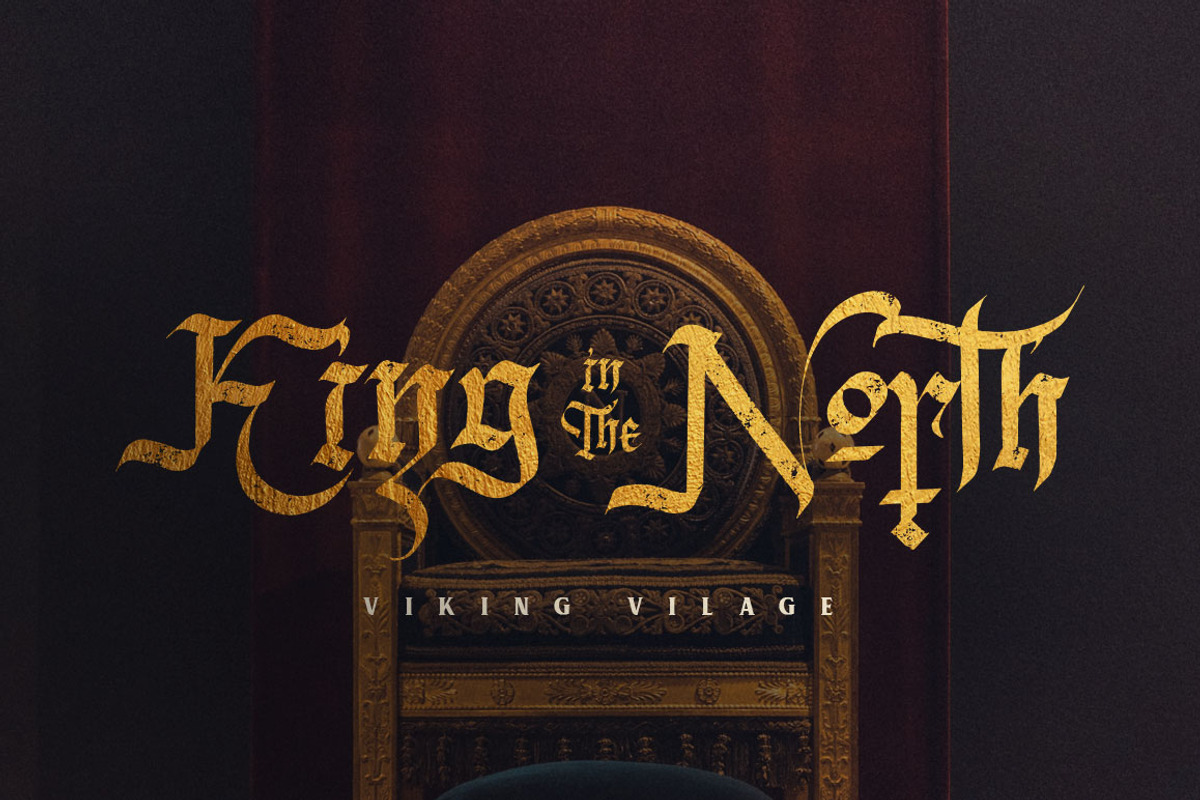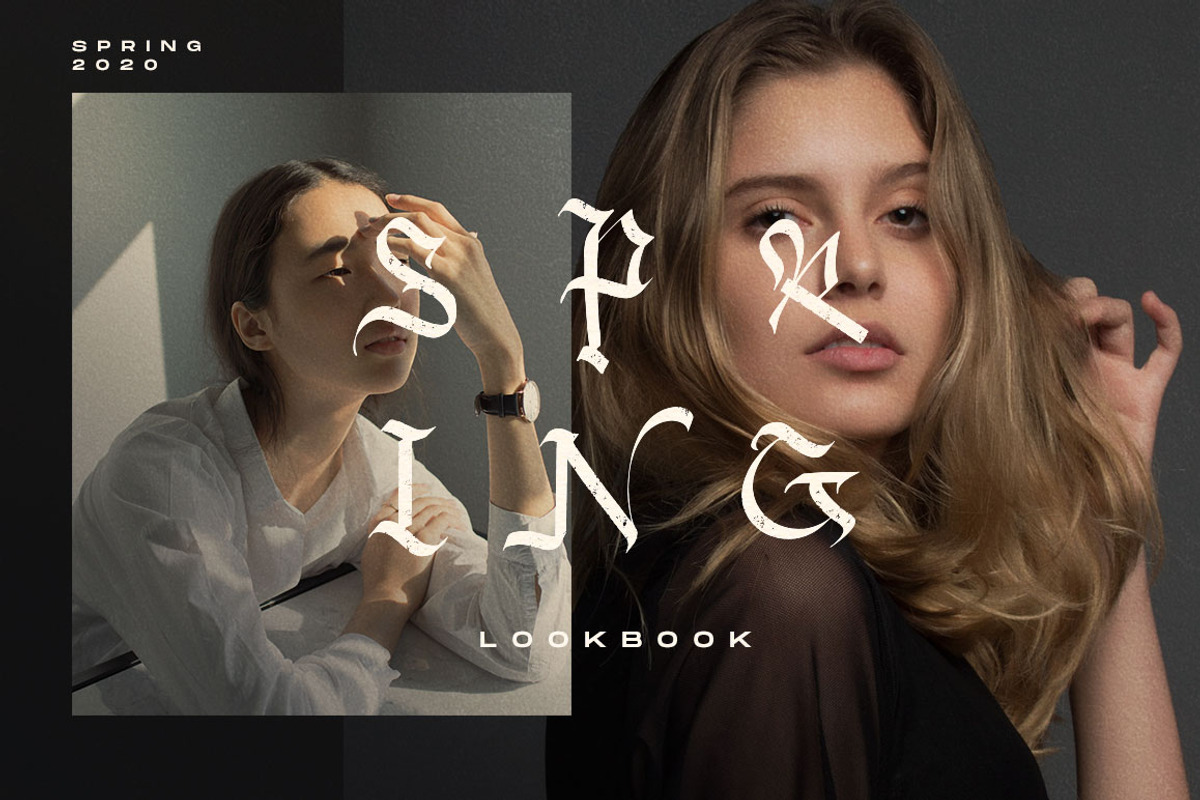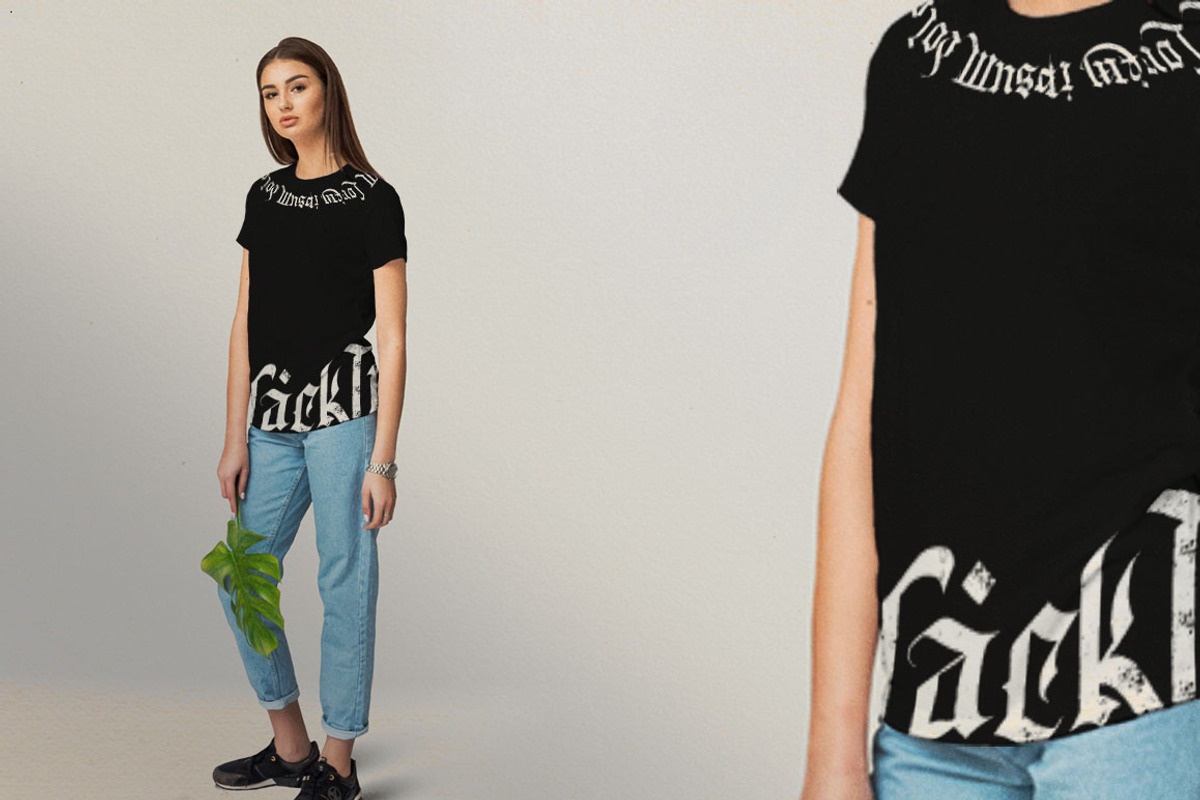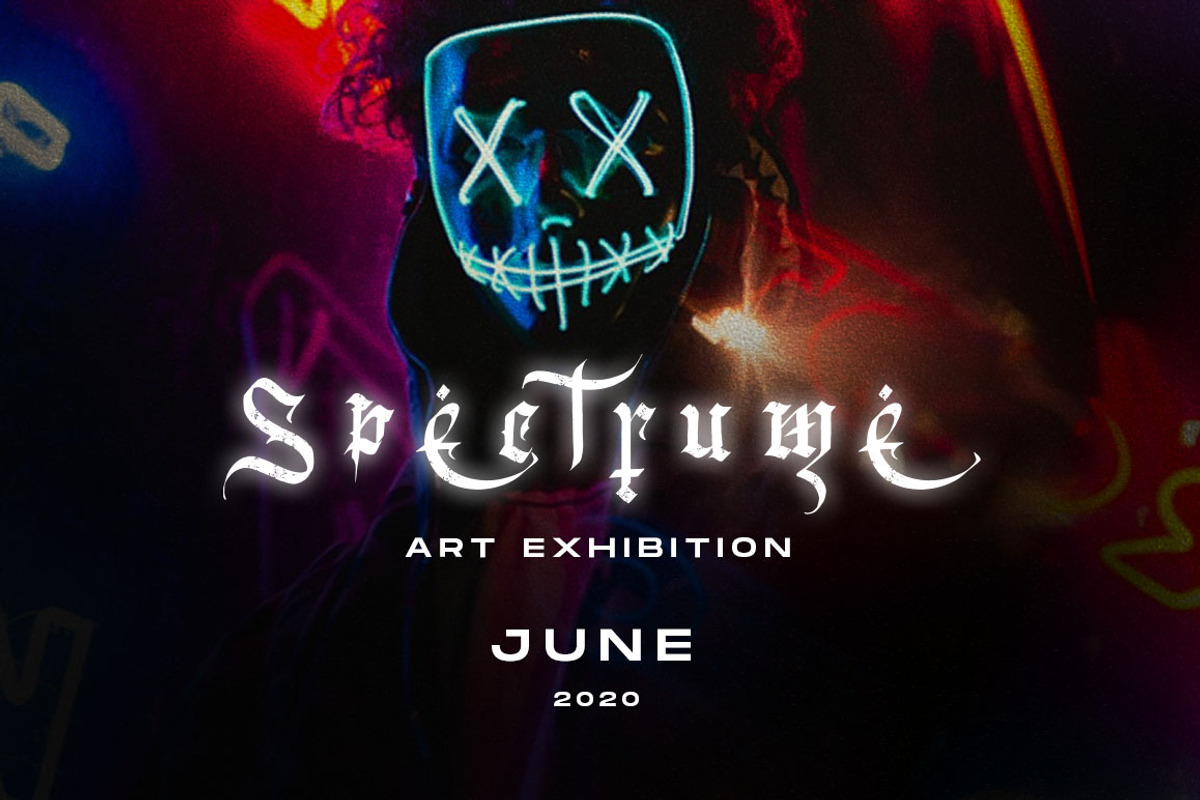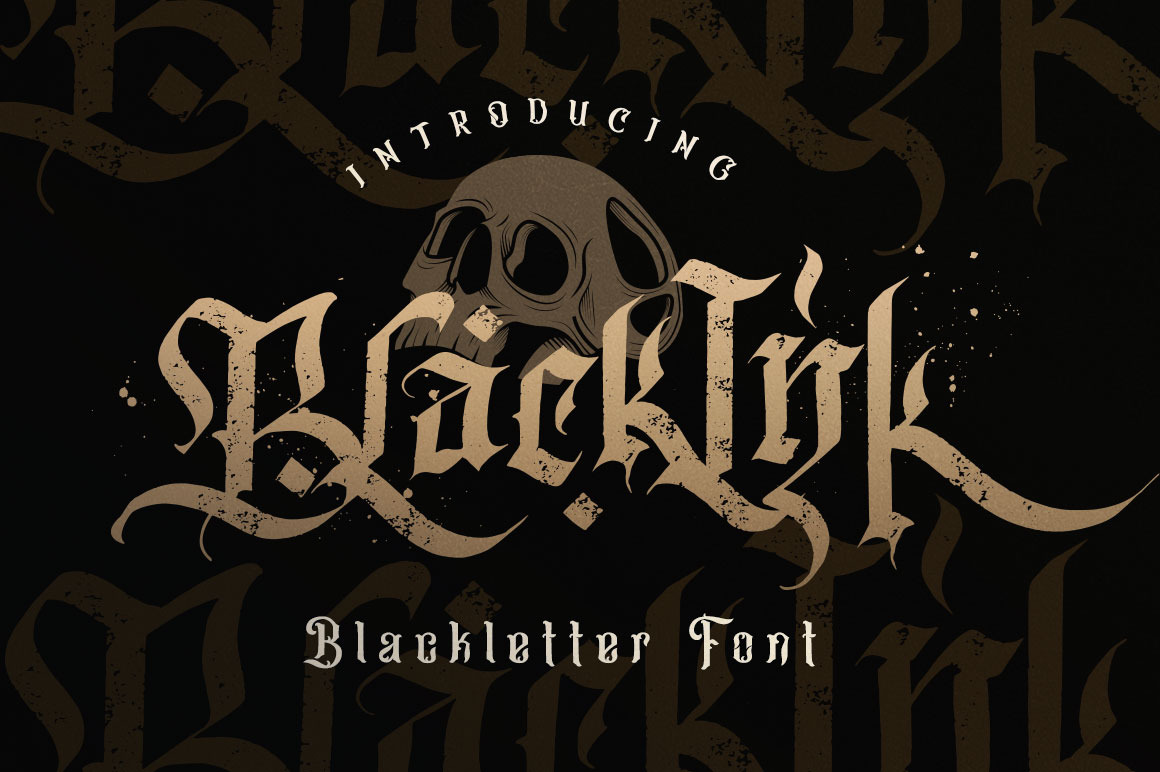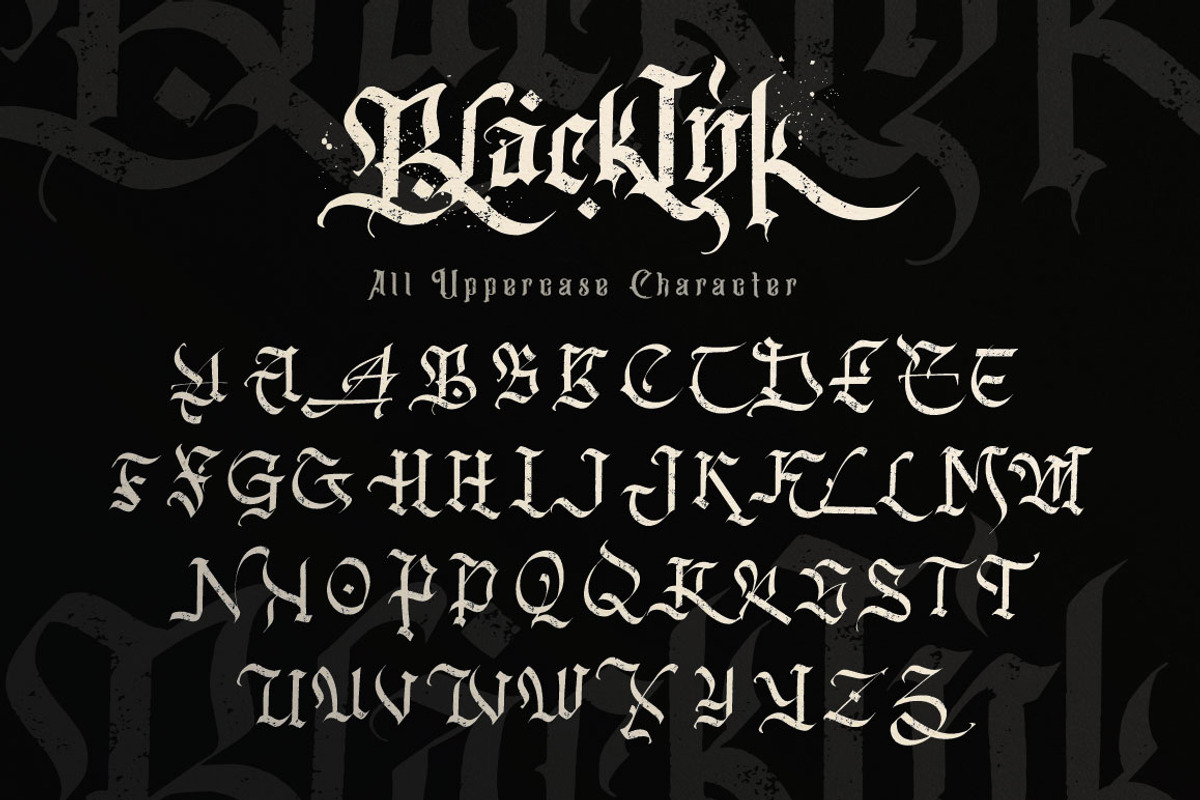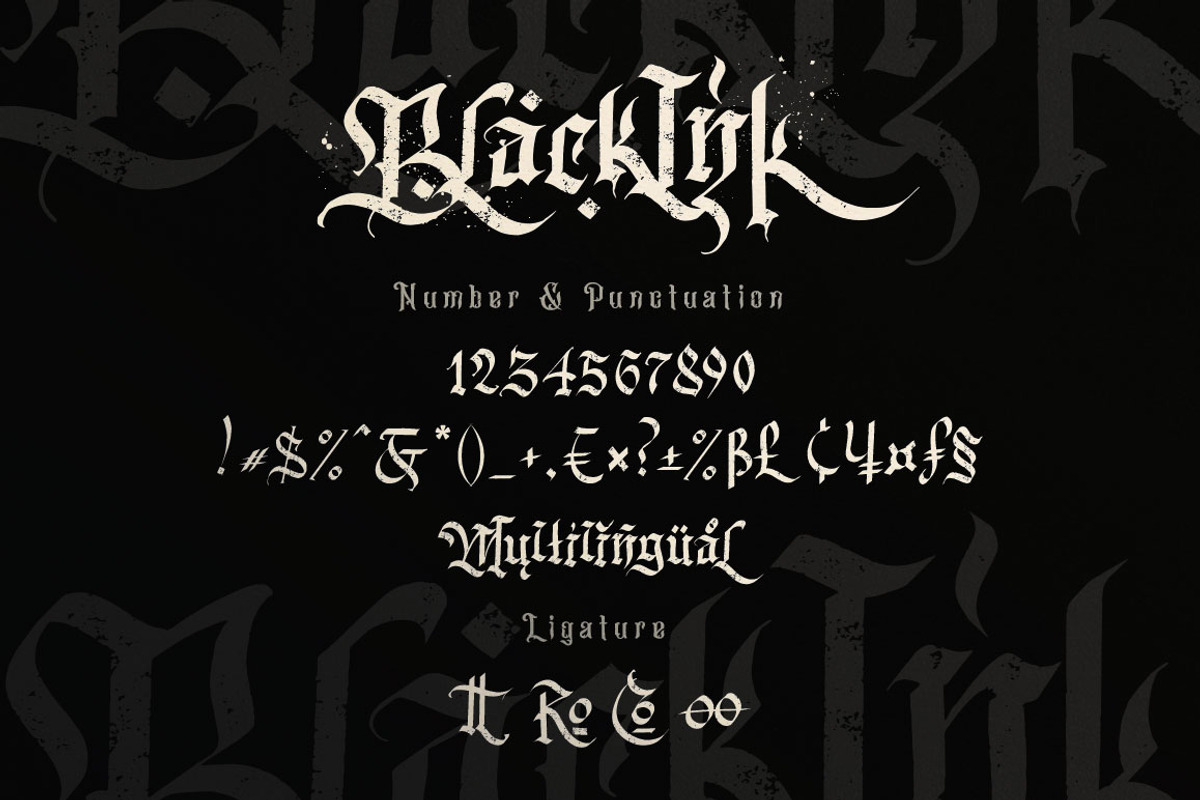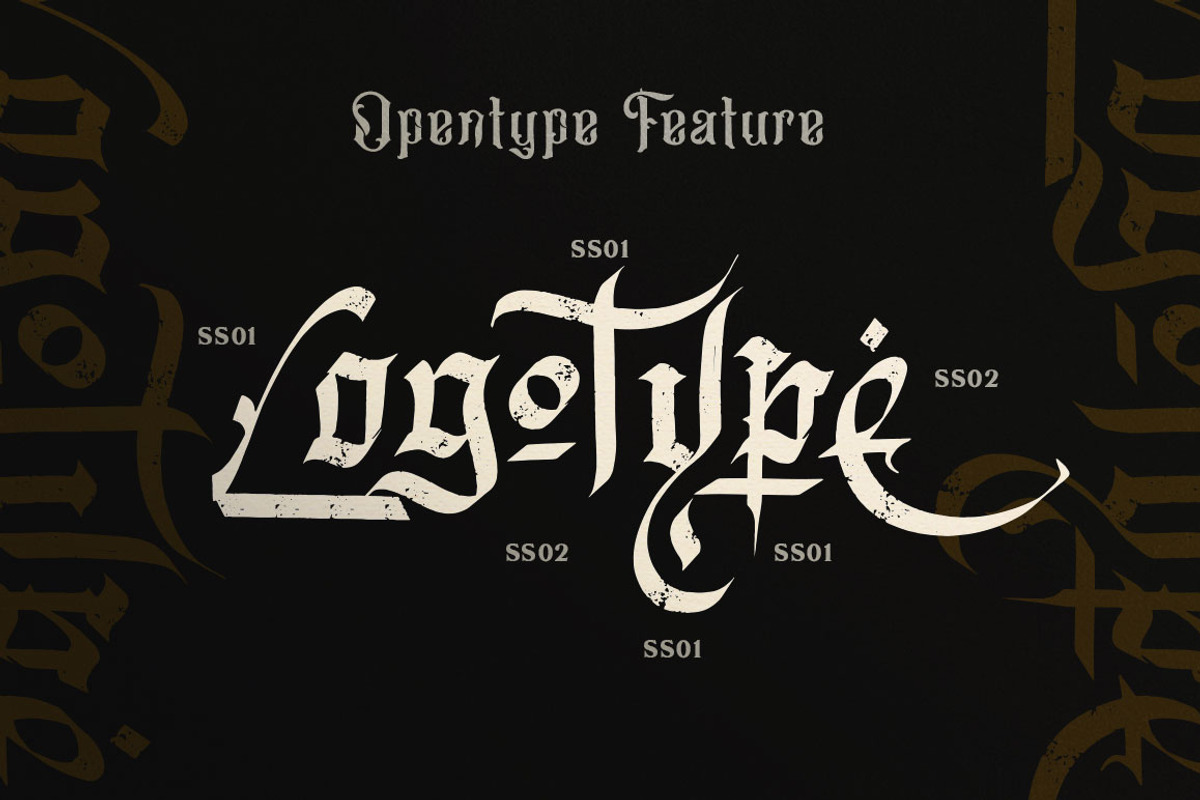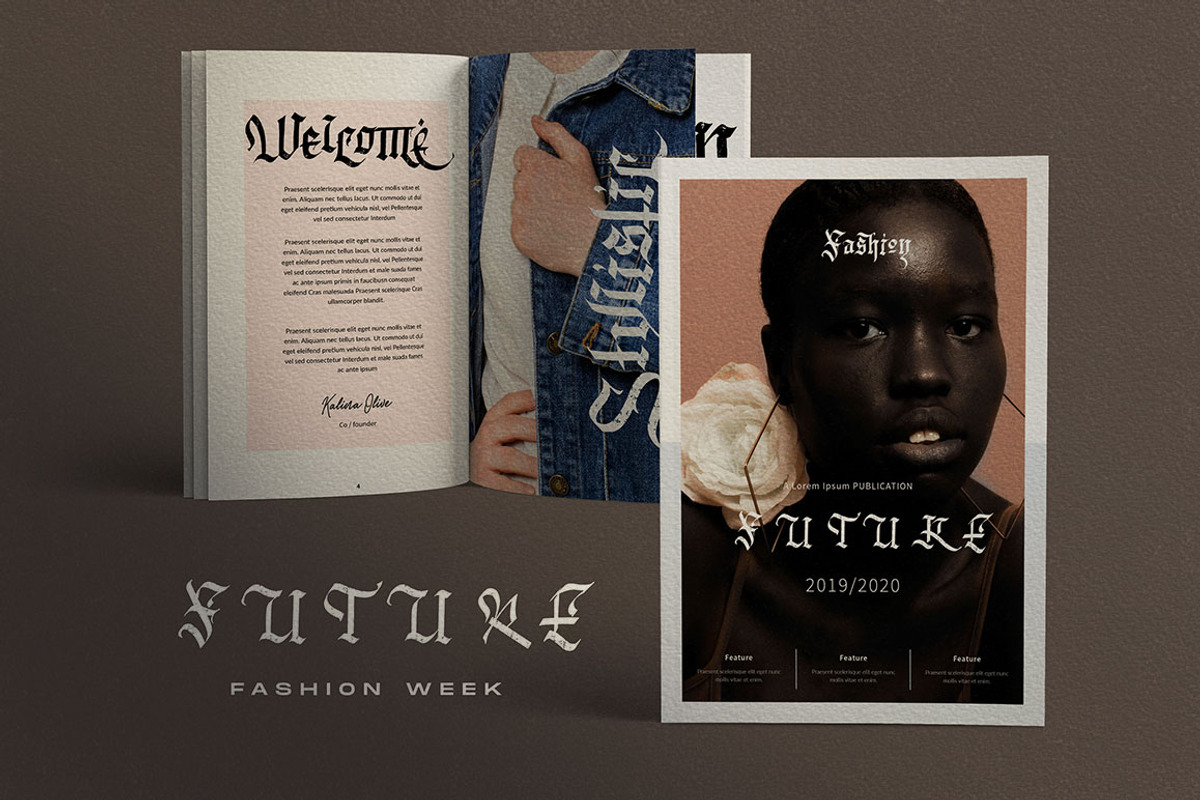
Blackink - Blackletter Font
Blackink Blackletter Inspired by Modern Calligraphy style and combination with Hand Lettering style. I'm made with personality touch every single curve. I hope this can make inspire you from your work. and a very bouncy baseline It has a perfectly paired complimentary Brush font , and a super handy set of bonus Swash. Ideal for logos, handwritten quotes, product packaging, header, poster, merchandise, social media & greeting cards.
- Stylistic Set
- Multilanguage Support